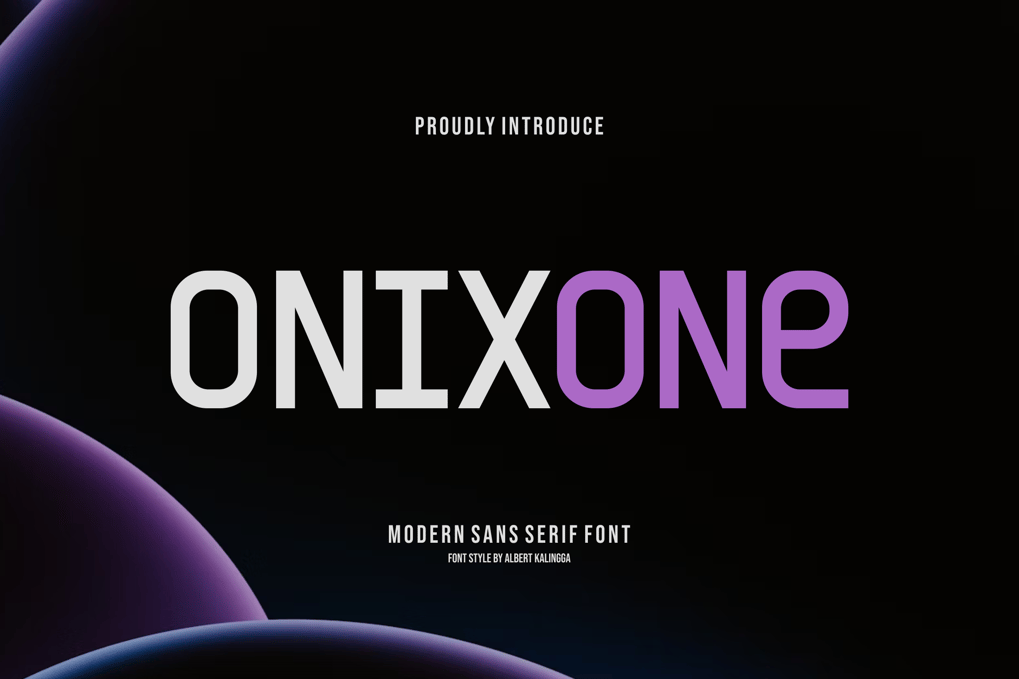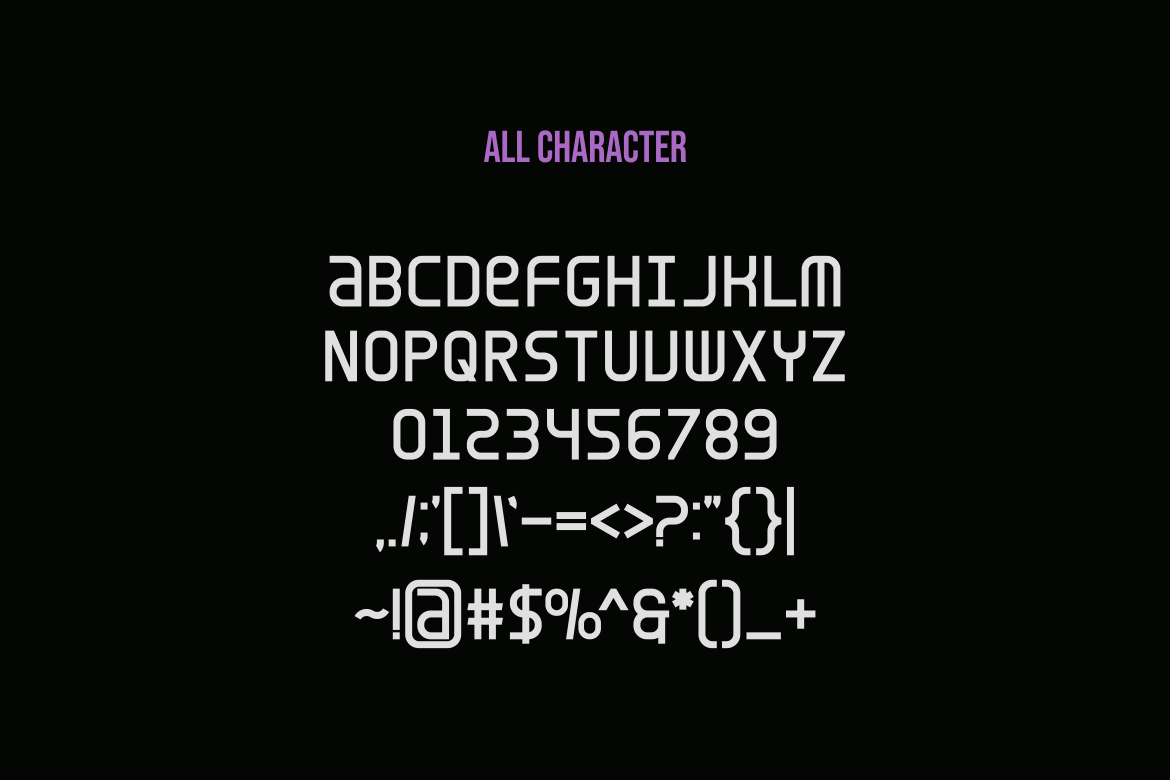
Onixone Font
Onixone Font – Modern Font is a bold and authentic display font. The font is suitable for any branding project like logo, esport, and many more. outstanding in a wide range of contexts.